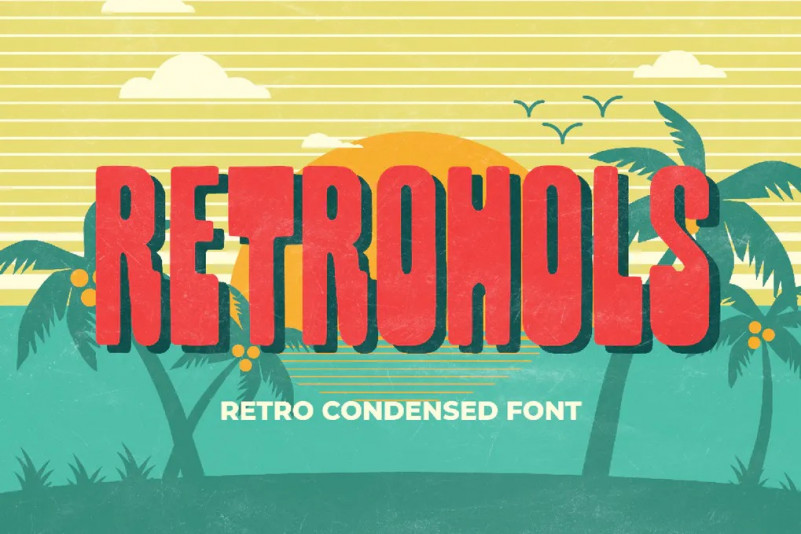
Retrohols Font
Retrohols is perfect for Craft , product packaging, product designs, label, branding projects, logo, vintage social media posts, advertisements, watermark, invitation, stationery and any projects